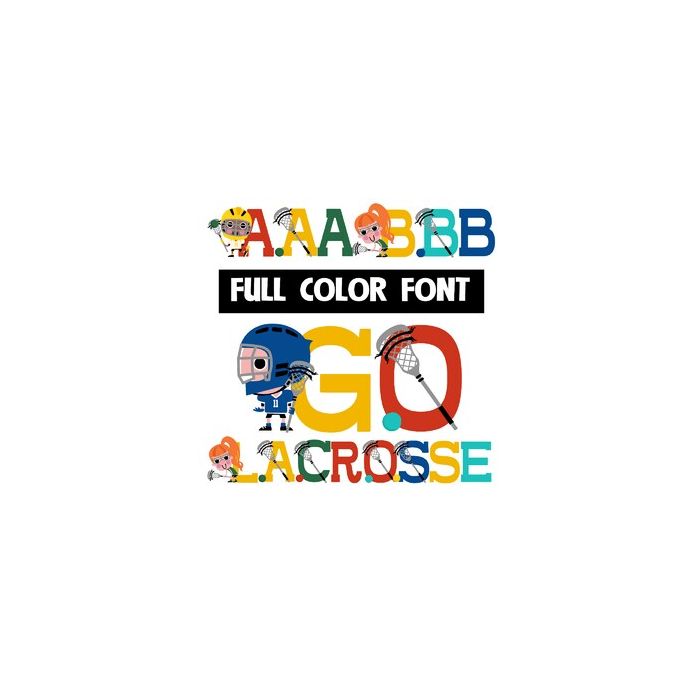
This full-color font features lacrosse players, coaches, and referees on the uppercase and a lowercase with just the balls. An alt lowercase is available through Silhouette's glyph map of just plain lettering.